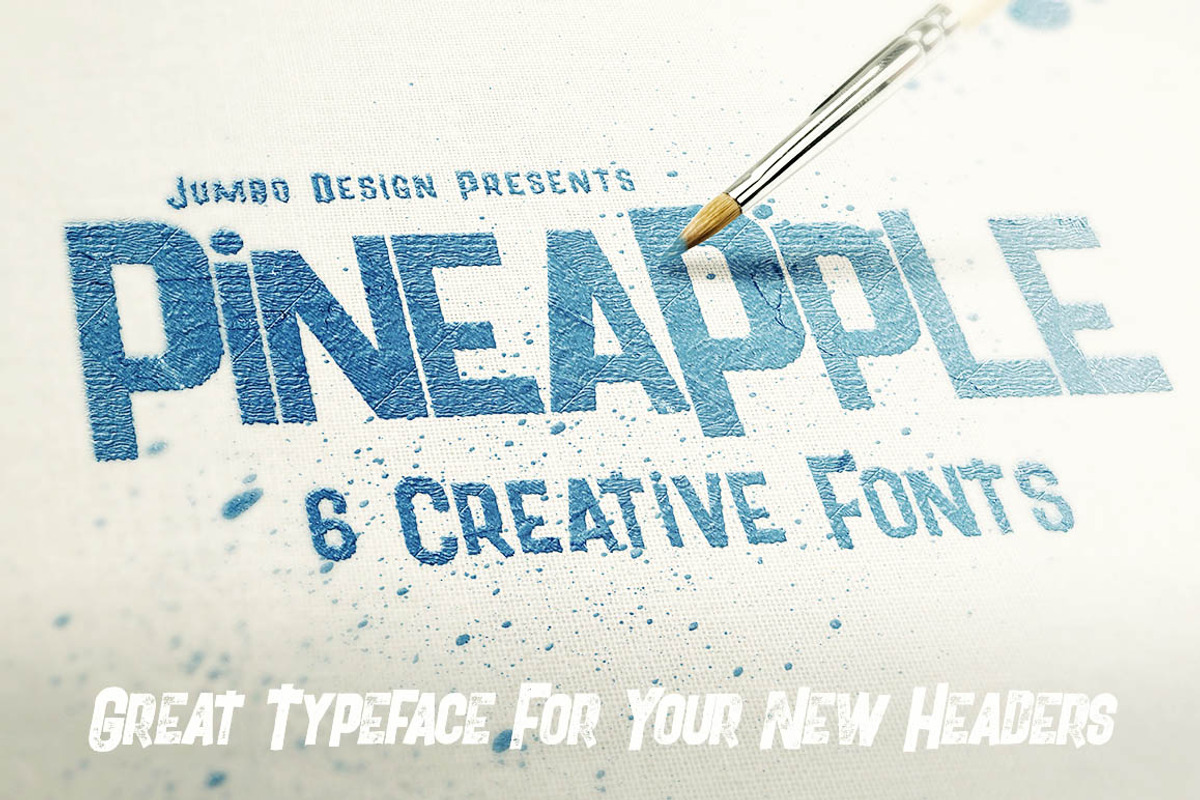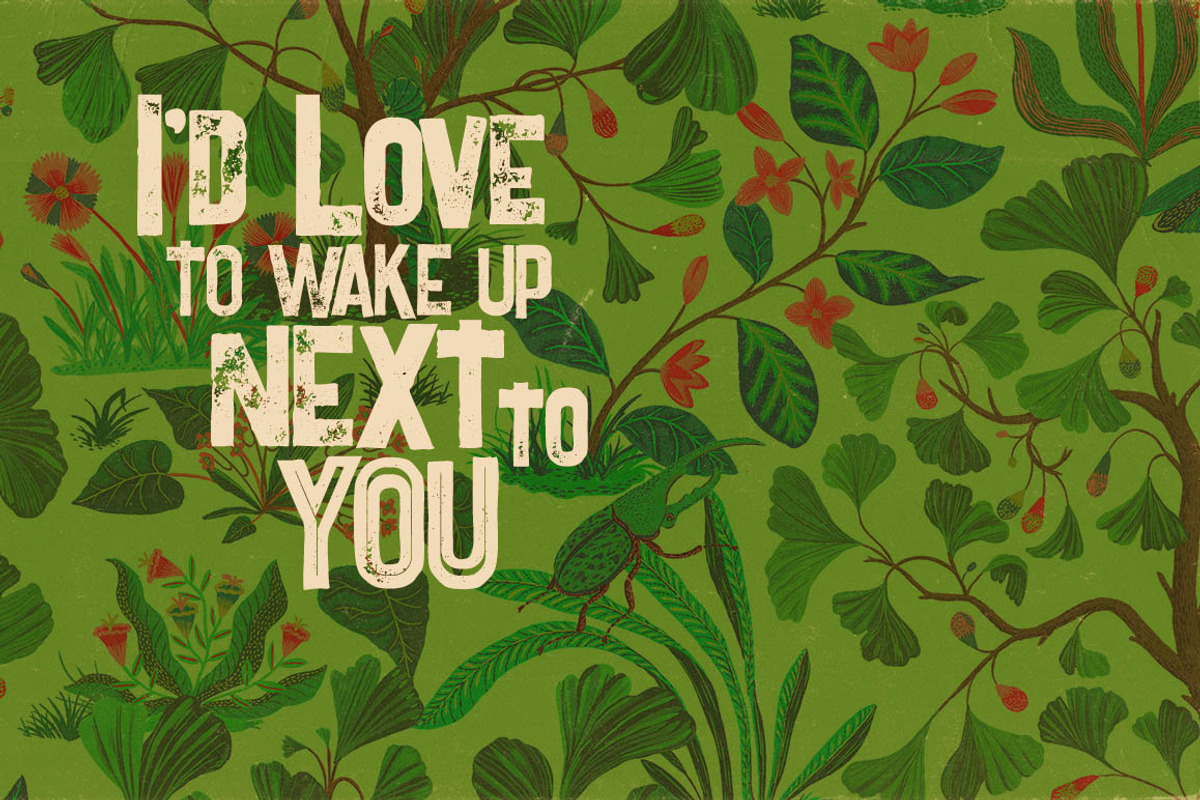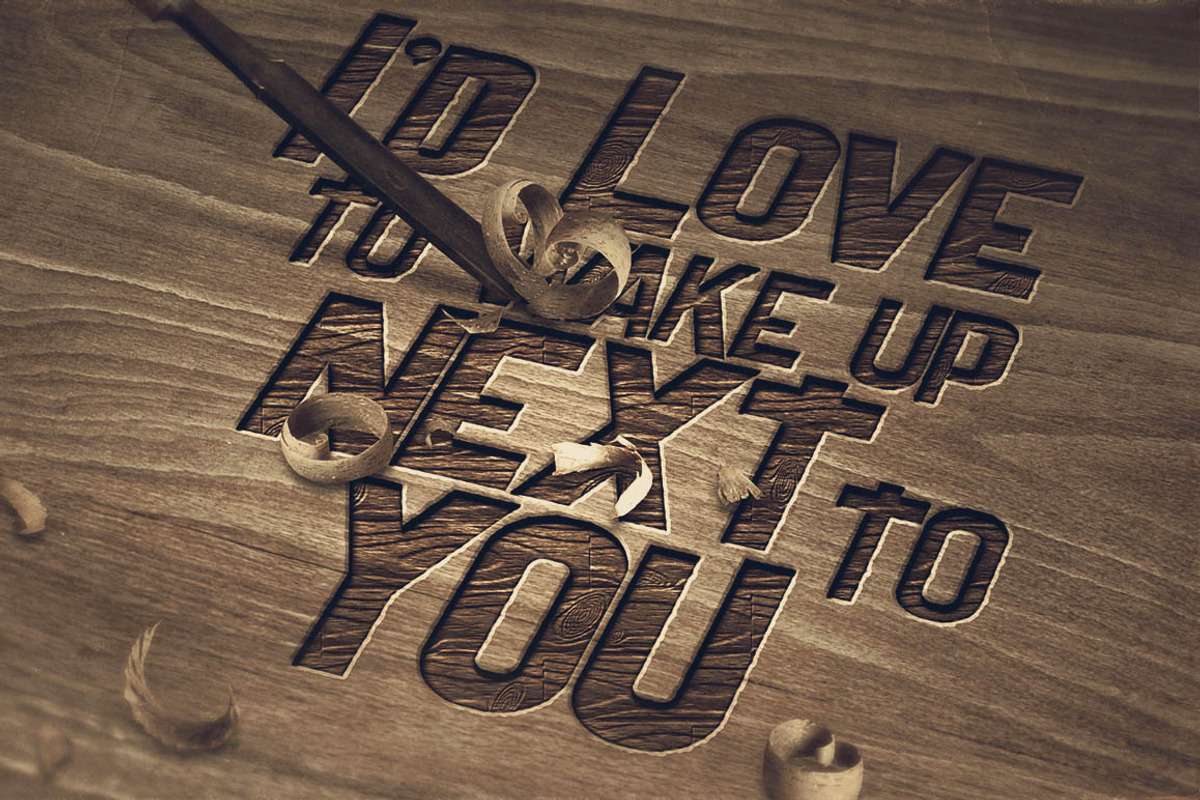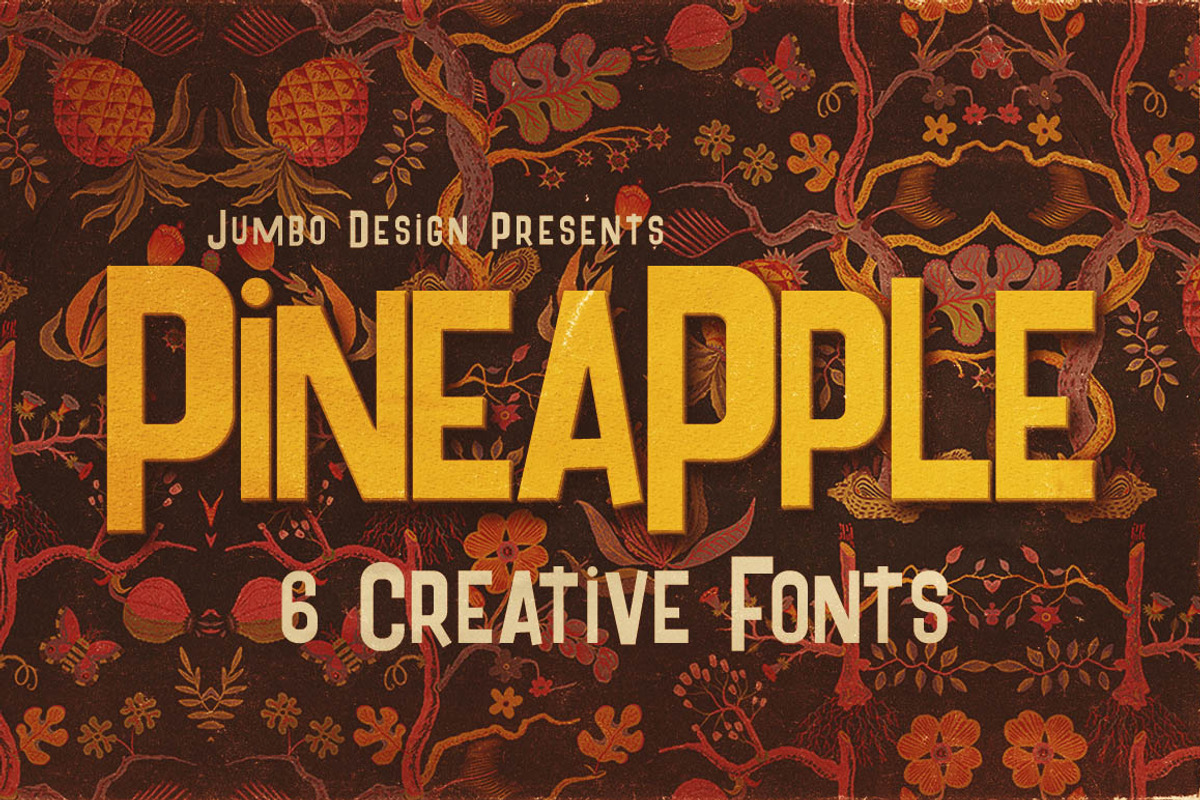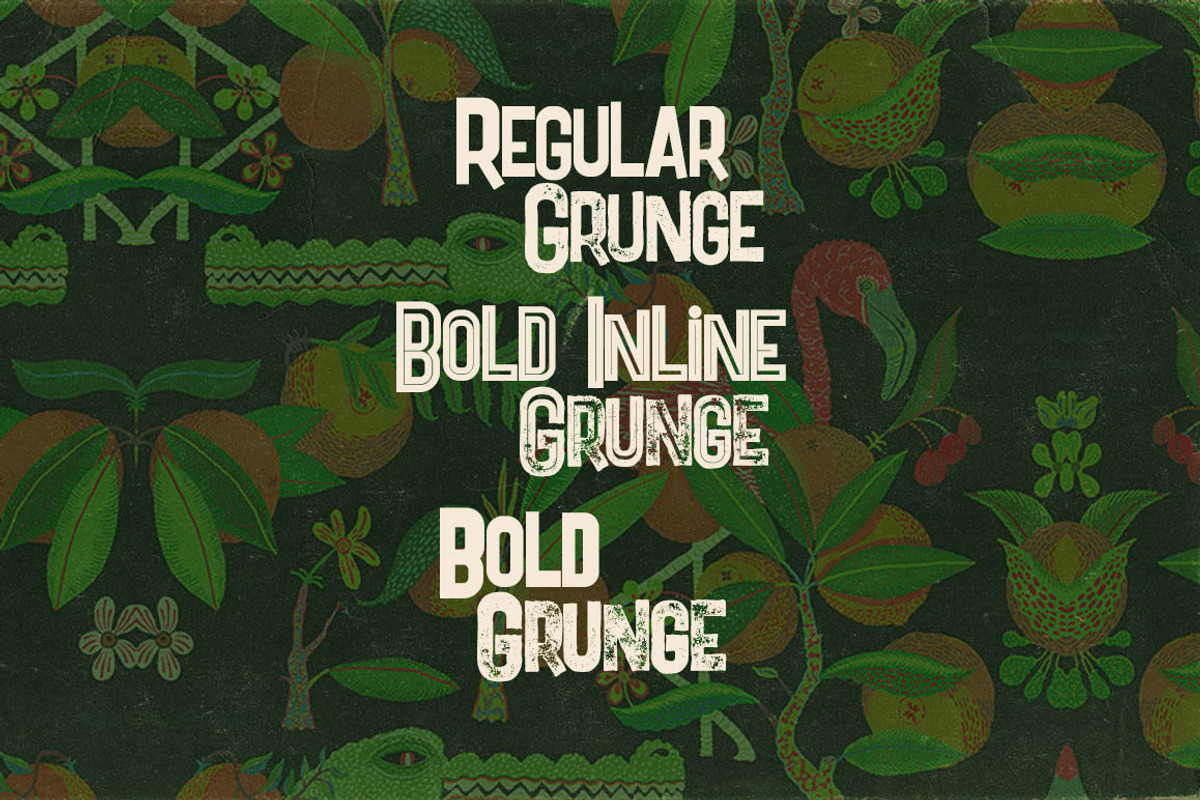
Pineapple - Funny Style Font
Pineapple - Funny Style Font by JumboDesign is a font selected for branding, posters, packaging, typography.
Pineapple - Funny Style Font by JumboDesign fits naturally into Branding, posters, packaging, typography.